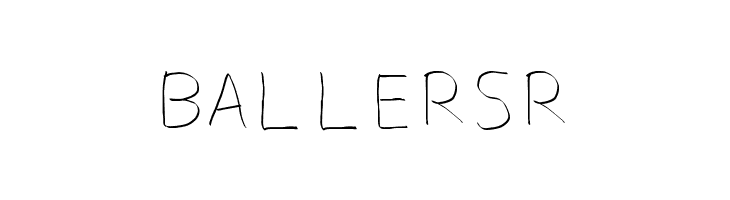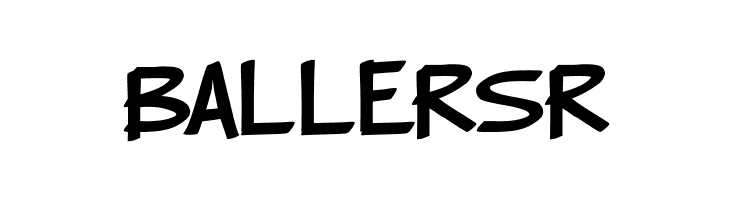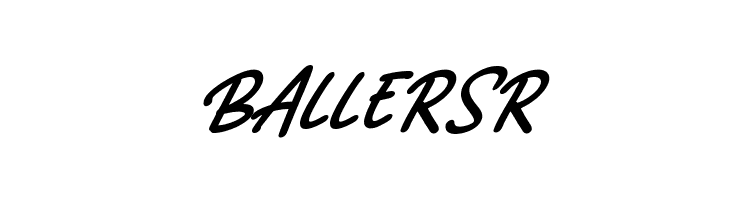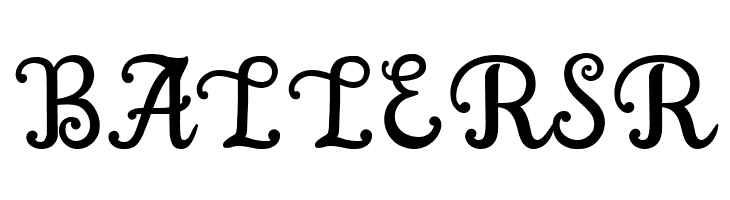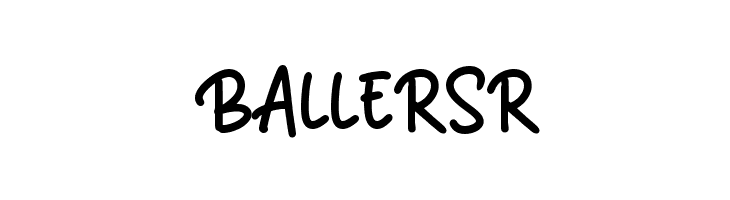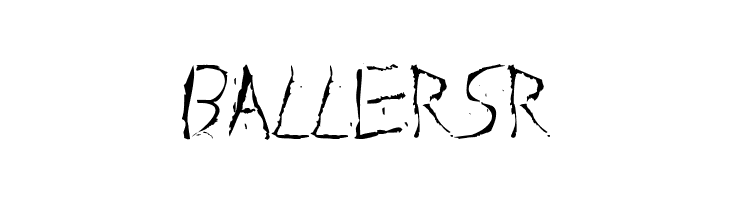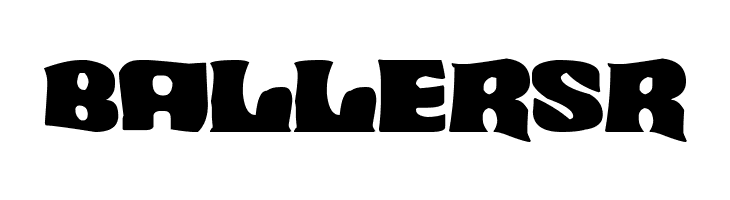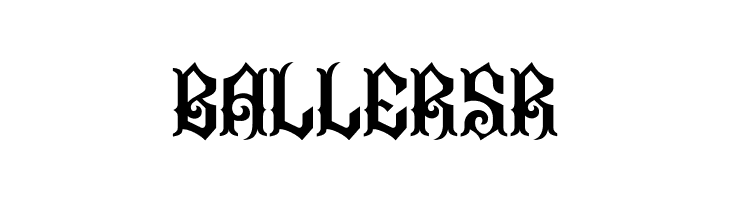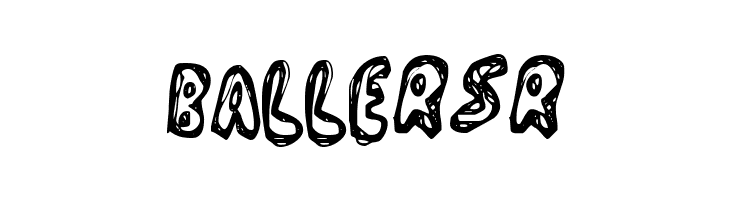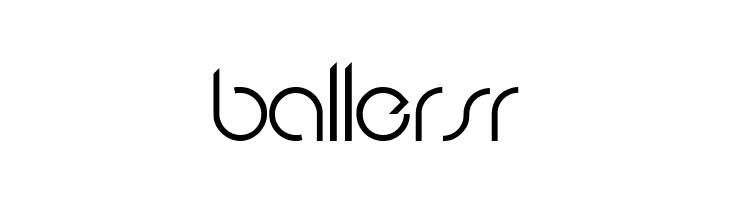
A bold, decorative slab serif font with unique cut-out details.
Bold blackletter font with a medieval style.
A playful, handwritten font with a whimsical and informal style.
A modern, rounded font with uniform stroke width and friendly appearance.
A bold, rounded sans-serif font with smooth curves and uniform strokes.
A bold, italicized font with rounded, smooth letterforms and a modern aesthetic.
A modern, italic font with rounded, smooth characters and consistent stroke thickness.
A modern, rounded sans-serif font with smooth curves and a clean, approachable design.
A casual, handwritten font with a personal and authentic touch.
A playful, decorative font with whimsical curls and loops.
A bold, handwritten font with a playful and informal style.
A bold, italic cursive font with a fluid, handwritten style.
A playful, hand-drawn style font with bold, irregular strokes.
A playful, handwritten-style font with bold, irregular strokes.
A futuristic, geometric font with a digital aesthetic.
A bold, geometric font with a 3D shadow effect.
A dynamic, hand-brushed font with expressive, irregular strokes.
A bold, handwritten-style font with playful and irregular strokes.
A decorative font featuring Aboriginal-inspired pictograms.
A decorative font with pictographic symbols inspired by Aboriginal art.
A bold, playful font with a quirky, cartoonish style.
A flowing, cursive font with a handwritten, elegant style.
A bold, cursive handwritten font with dynamic, flowing characters.
A bold, playful font with rounded, whimsical characters.
A modern, geometric typeface with clean lines and balanced spacing.